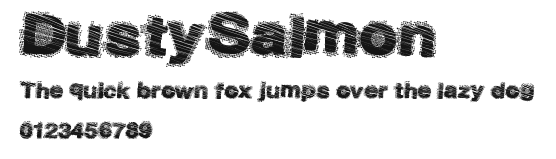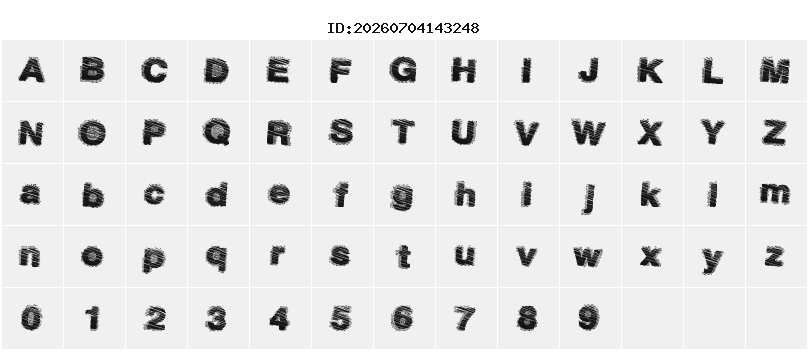
• Font Name: DustySalmon
• Font ID: DustySalmon:Version 1.00
• Full Font Name: DustySalmon
• Version: Version 1.00 September 28, 2013, initial release
• PostScript Name: DustySalmon
• Character Count: 72
• Designer: Xerographer Fonts Max Infeld
• Manufacturer: Xerographer Fonts
• Description: Made at Xerographer Studios in Chico,CA
DustySalmon.ttf is a modern, elegant sans-serif font designed for ultimate readability and visual harmony. Perfect for branding, headlines, web design, and print materials.